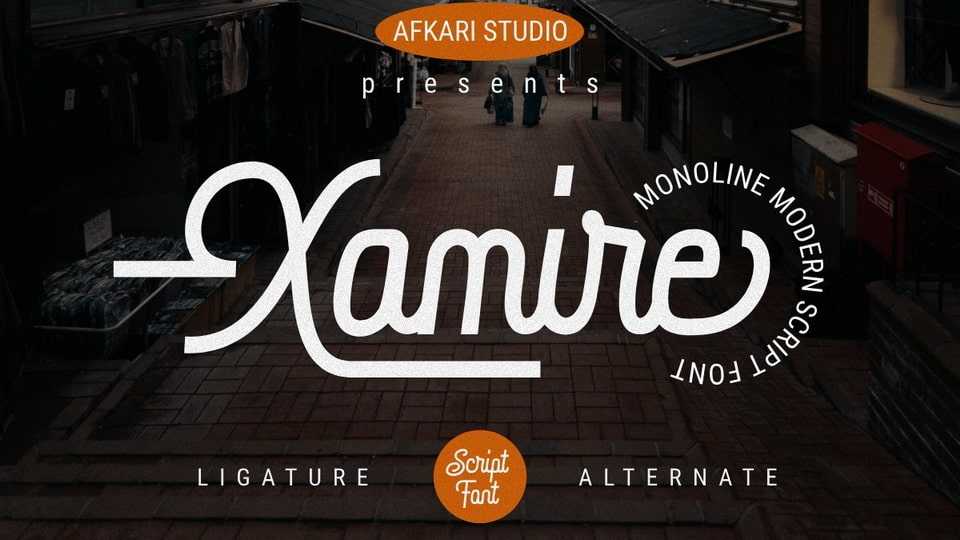
Download Xamire font, the epitome of elegance and modernity in typography. This monoline script font redefines sophistication, blending sleekness with a touch of artistic flair.